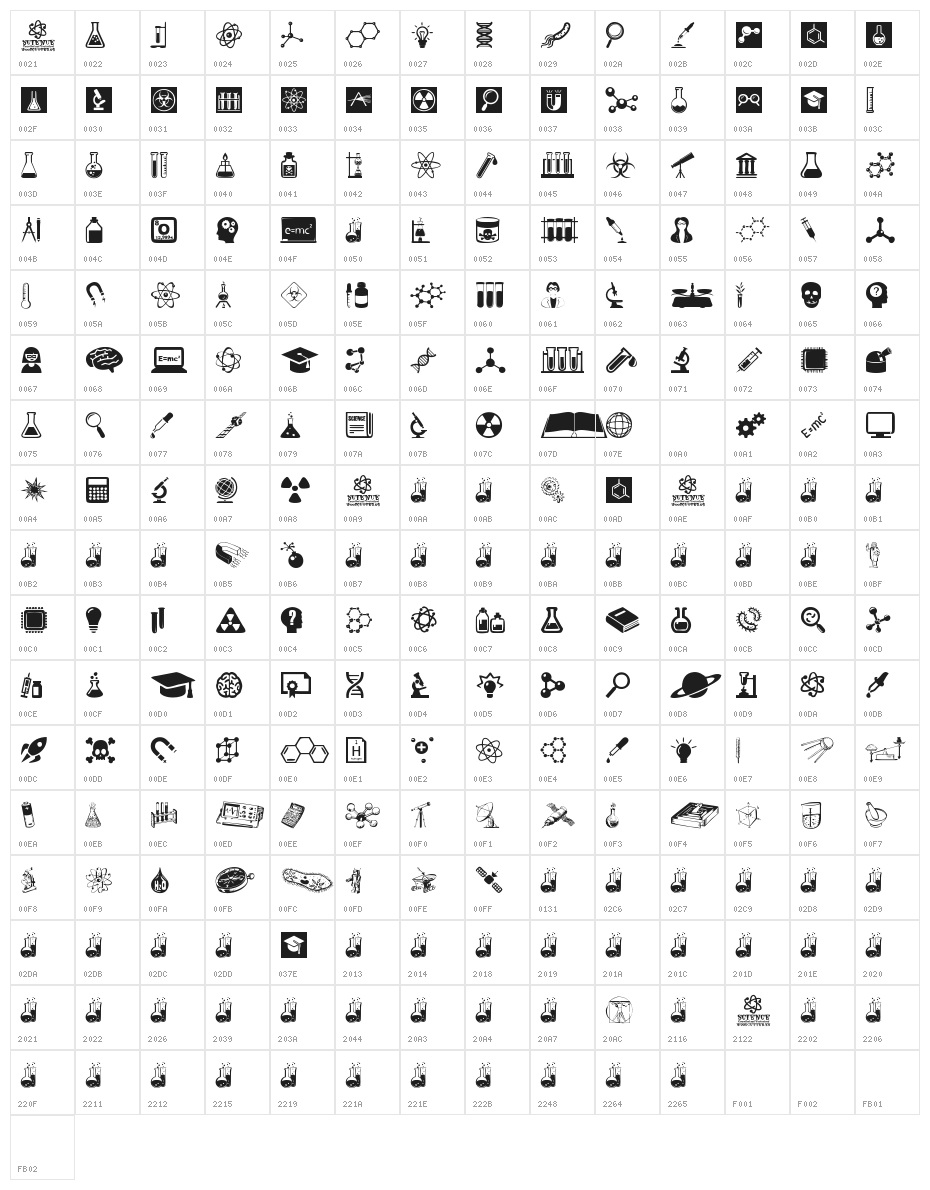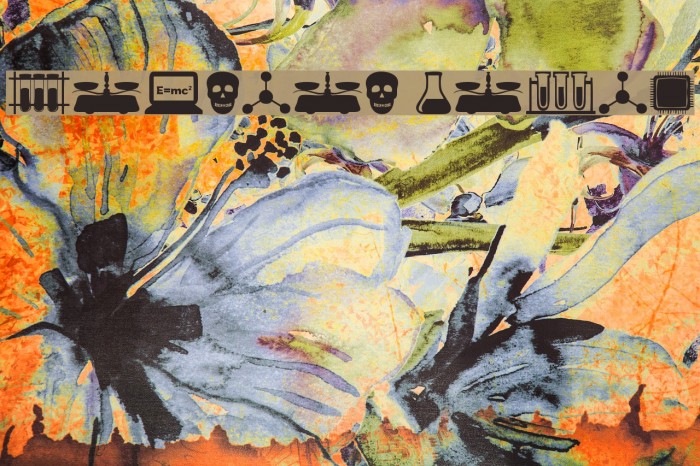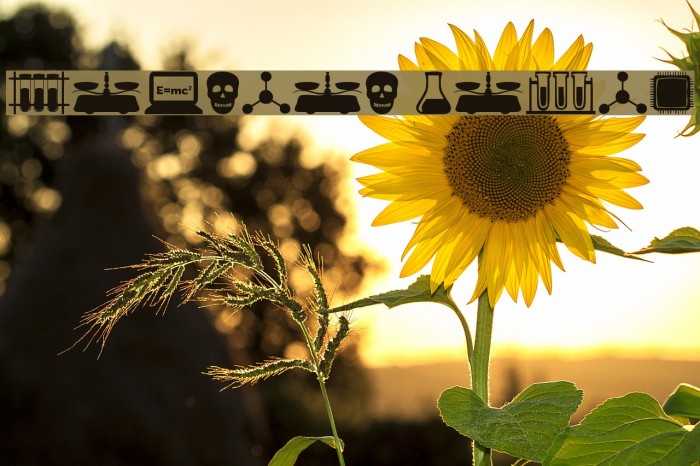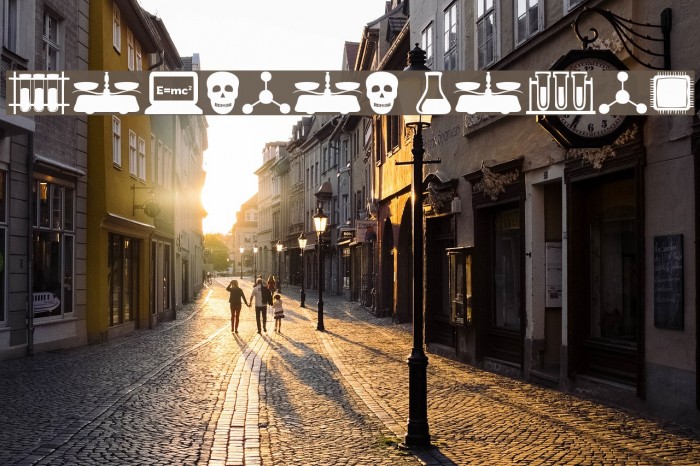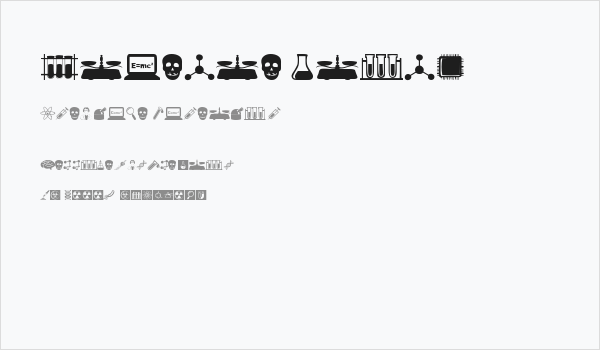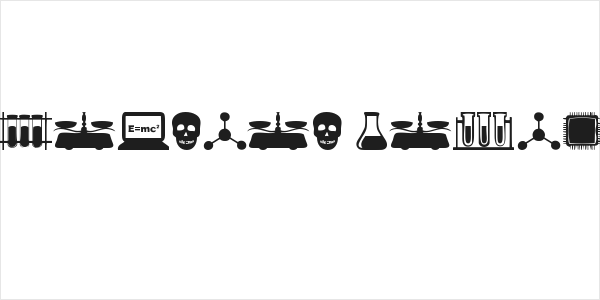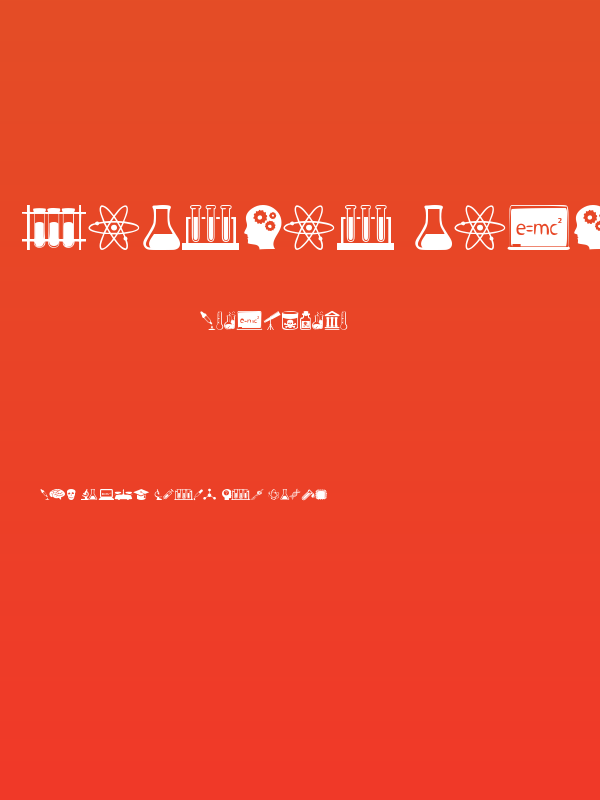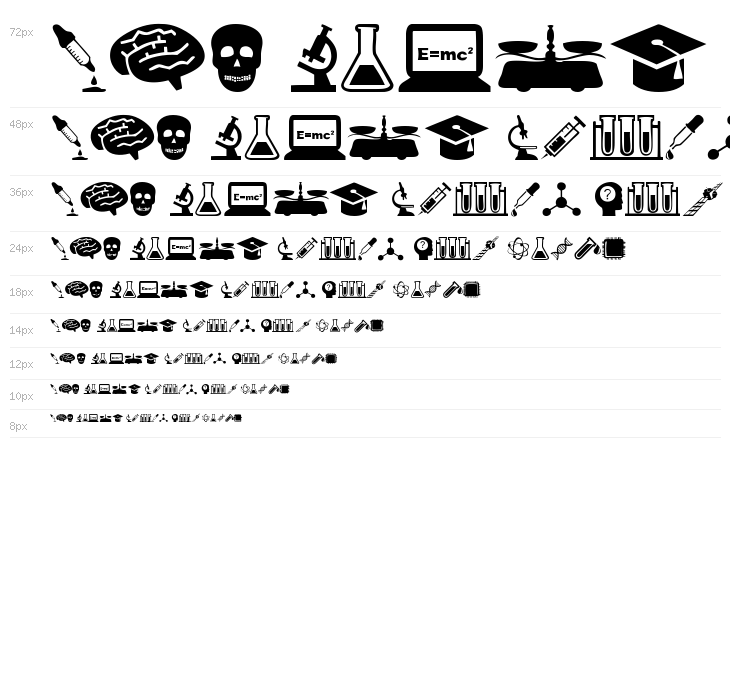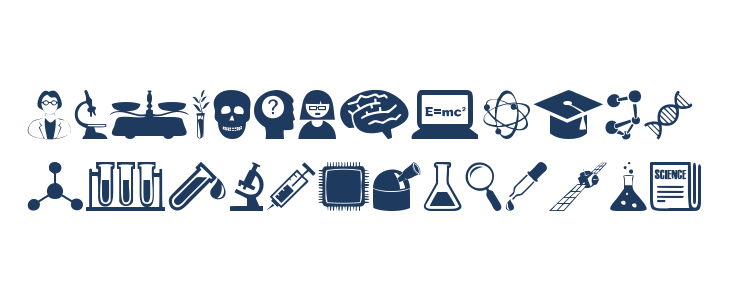
Science Icons Font
Science Icons Description
A collection of science-themed pictograms featuring laboratory equipment, chemical symbols, molecules, scientists, and various scientific icons. The glyphs are bold, highly legible, and rendered in solid black with minimal detail, making them suitable for clear visual communication.
| Overall Style | Modern, Decorative |
| Use Case | Icons, Infographics, Posters, Educational content |
| Proposed Projects | Educational materials, infographics, science presentations, posters, STEM websites, childrenΓ’β¬β’s books, and signage. |